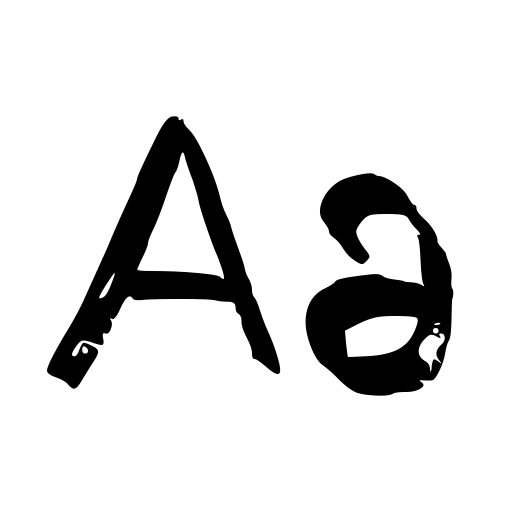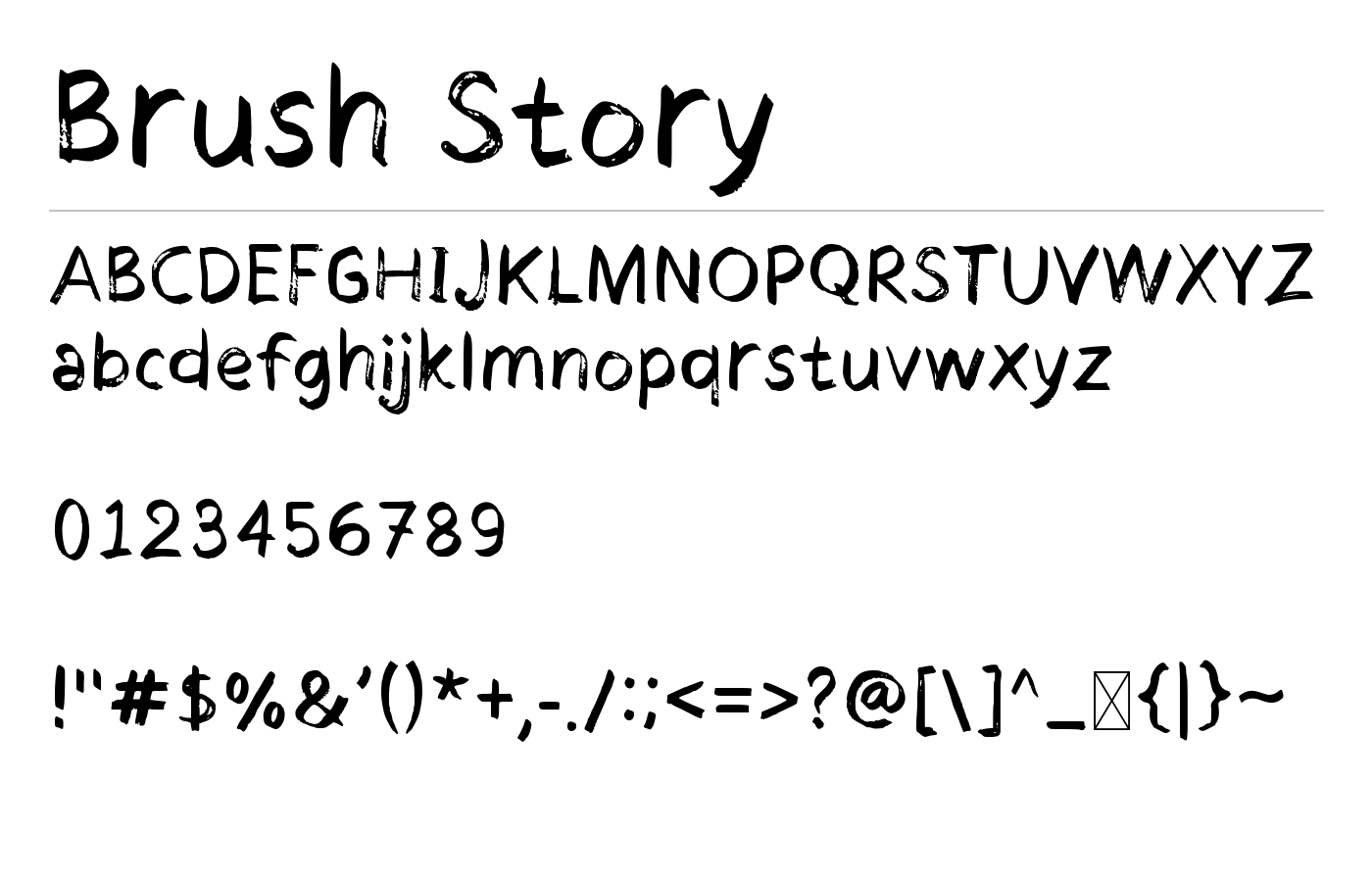
Brush Story is a casual, hand-painted sans serif font featuring uneven, textured strokes that mimic natural brush marks. Its irregular letterforms and medium weight give it a playful yet approachable personality, making it perfect for creative projects, informal branding, and expressive headlines that need a personal, artistic touch.
Brush Story Font
About Brush Story Font